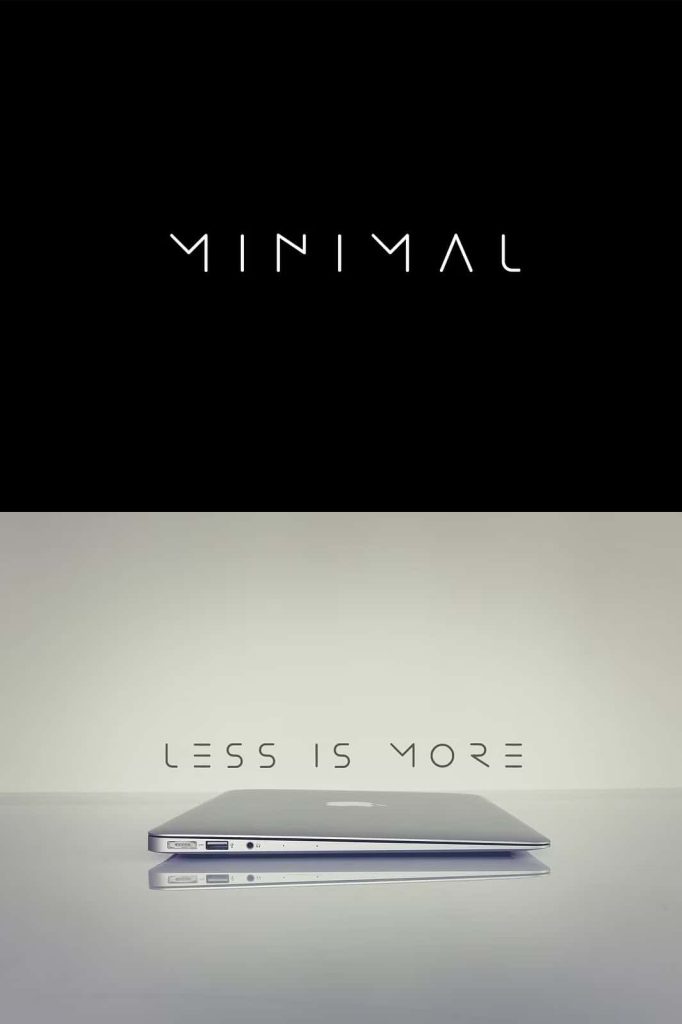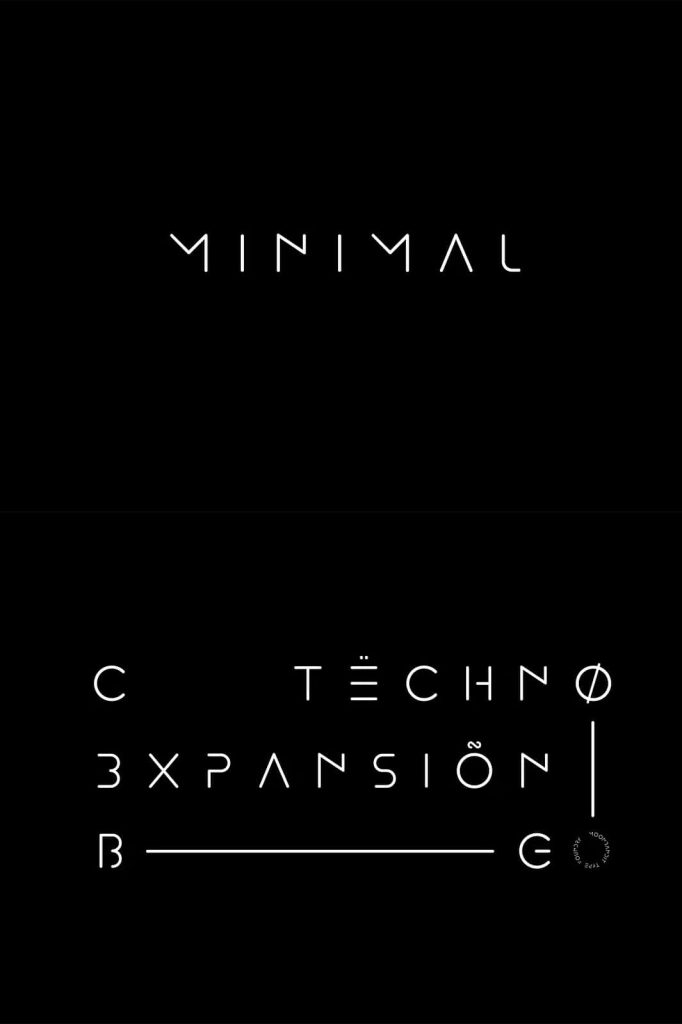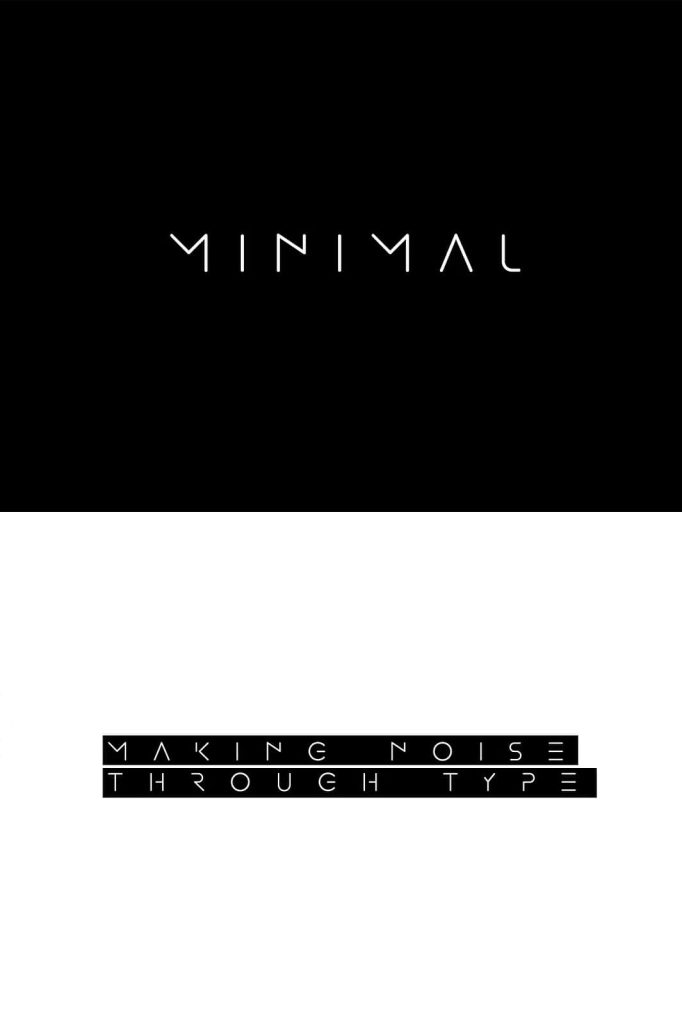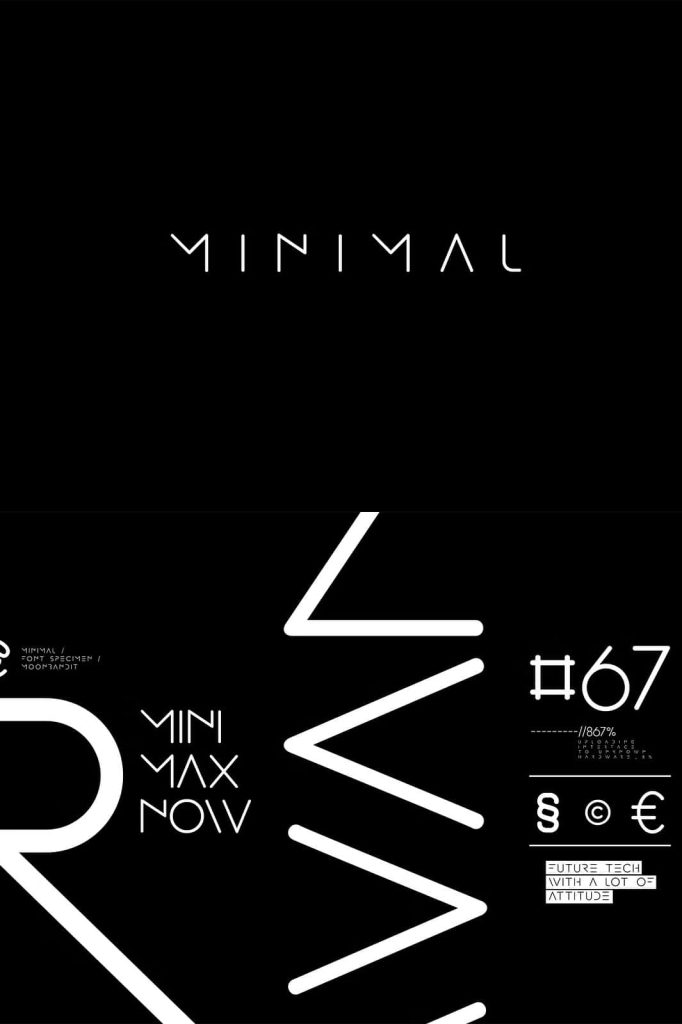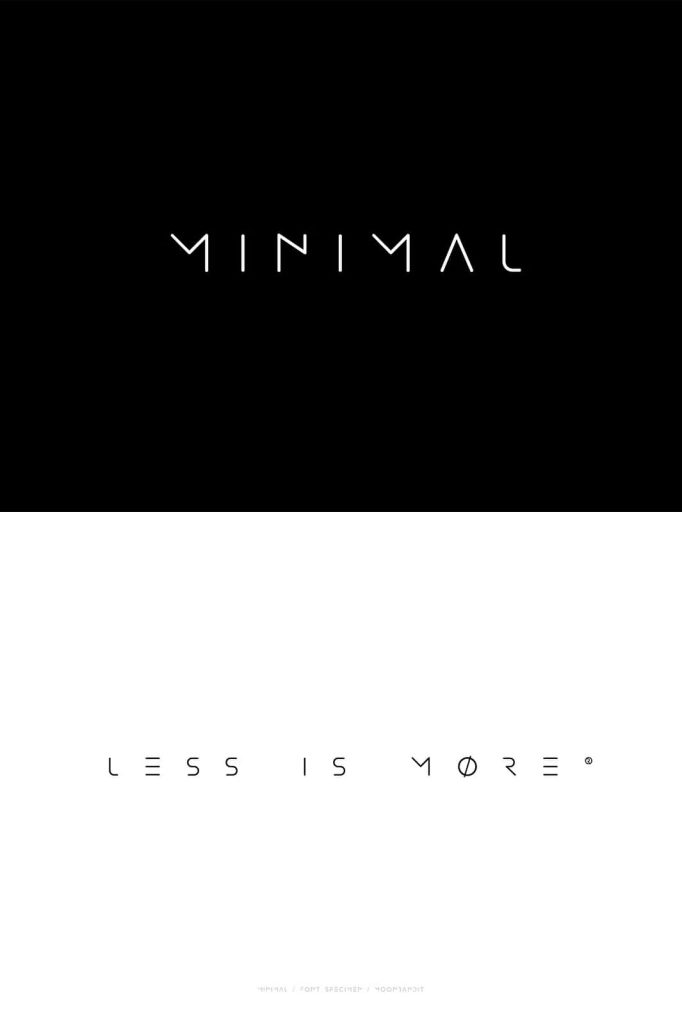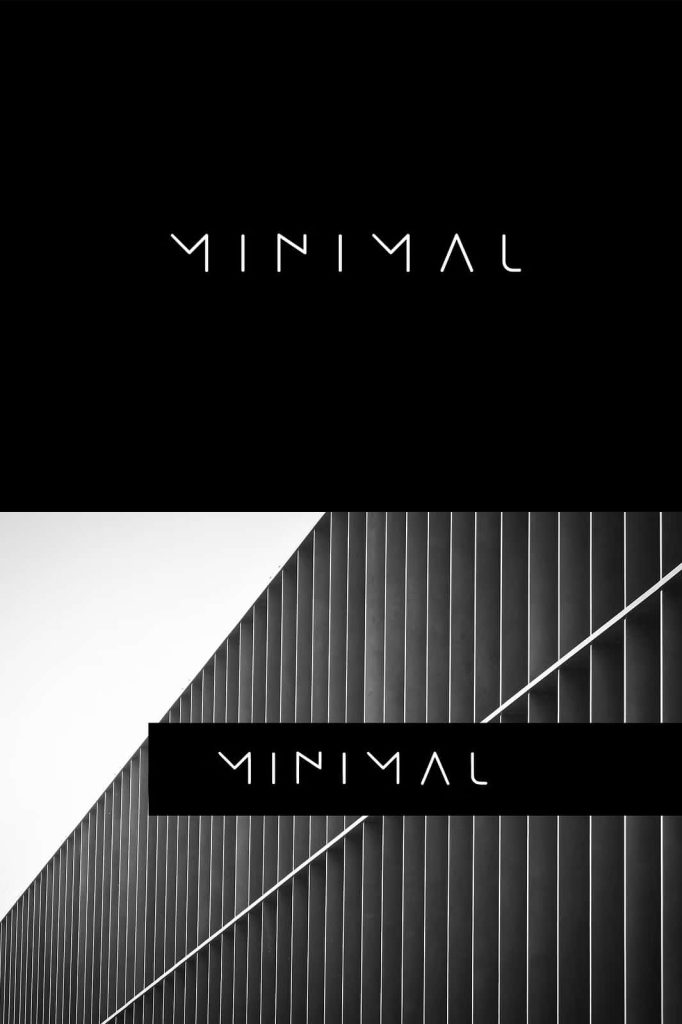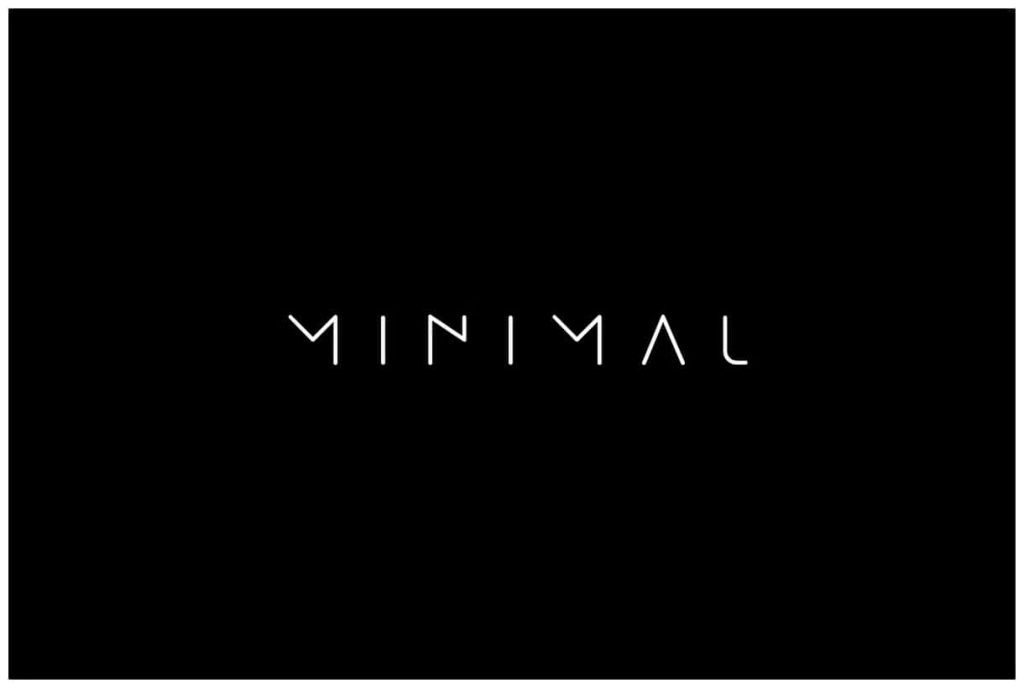
MINIMAL – modern futuristic fontleastedJune 6, 2025Fonts A minimal sans serif vector display font with a modern technological and futuristic feel Download